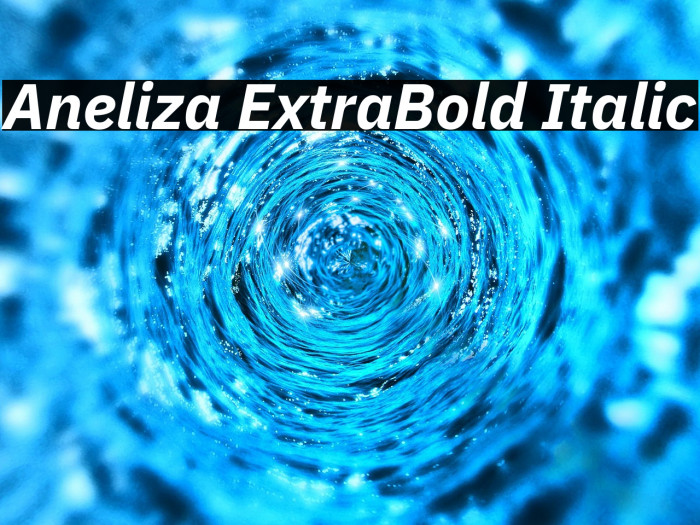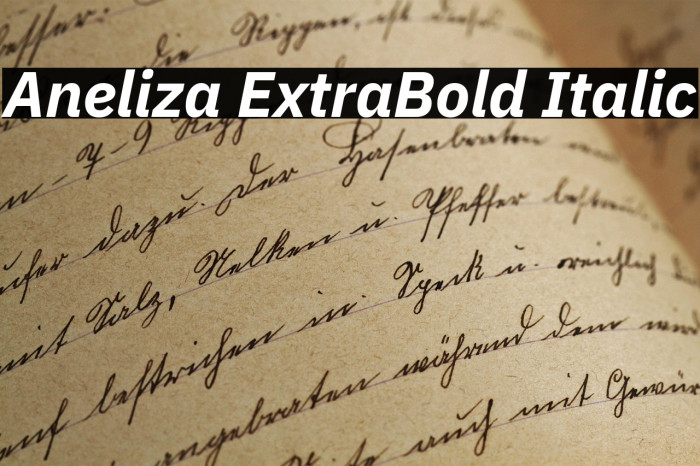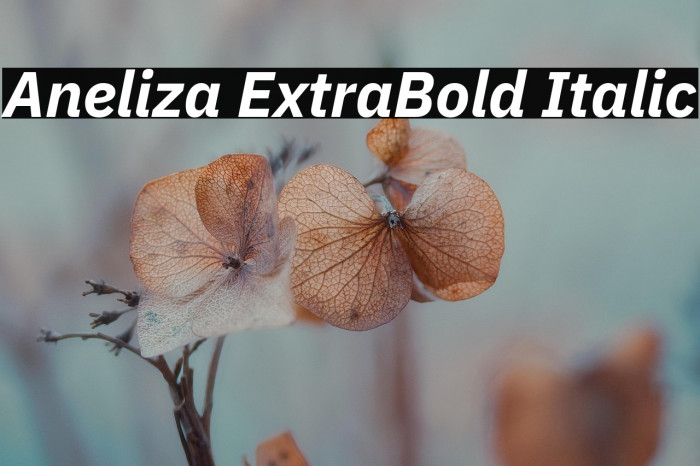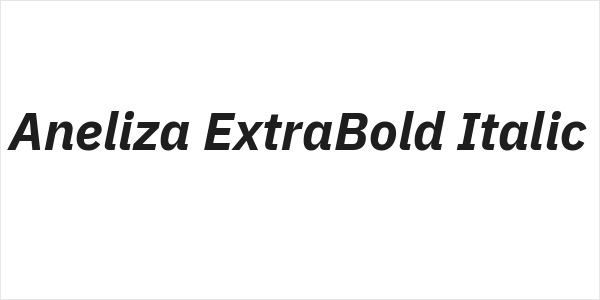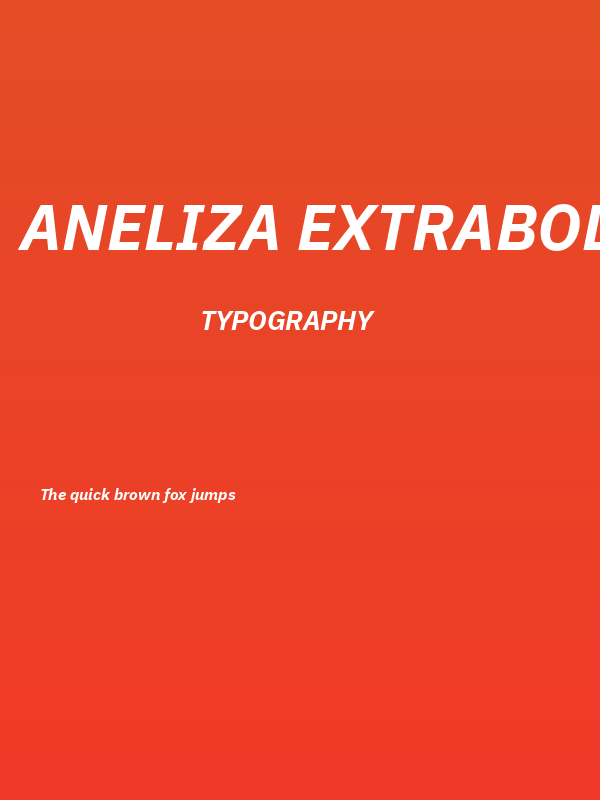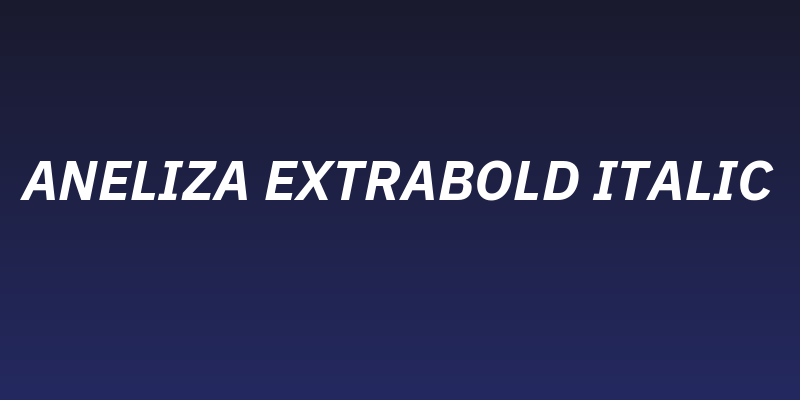
Aneliza ExtraBold Italic Font
Aneliza ExtraBold Italic Description
This font features a bold and dynamic style with a pronounced italic slant, giving it a sense of movement and energy. The characters are robust and impactful, making them suitable for attention-grabbing headlines. The strokes are thick and consistent, providing a strong visual presence. The font maintains a modern and clean aesthetic, with smooth curves and sharp edges that enhance its readability. It is well-suited for digital and print media where a bold statement is needed.
| Proposed Projects | Ideal for branding, advertising, headlines, and posters where a strong and modern impression is desired. |